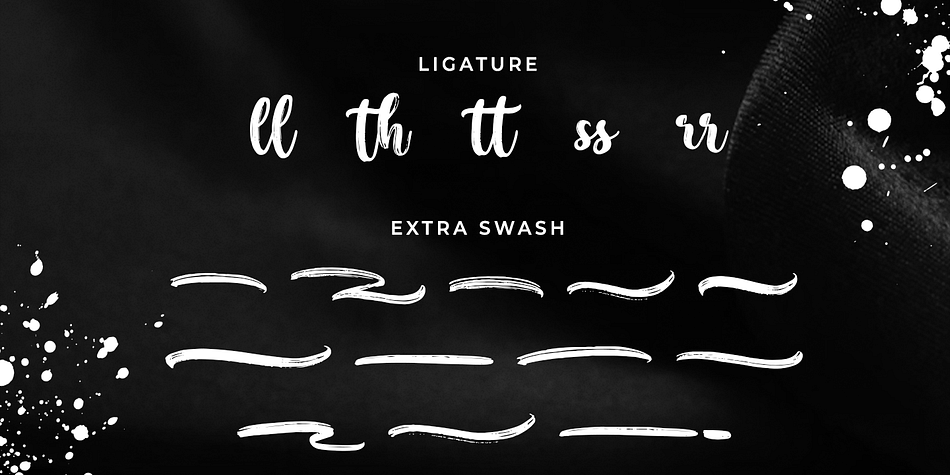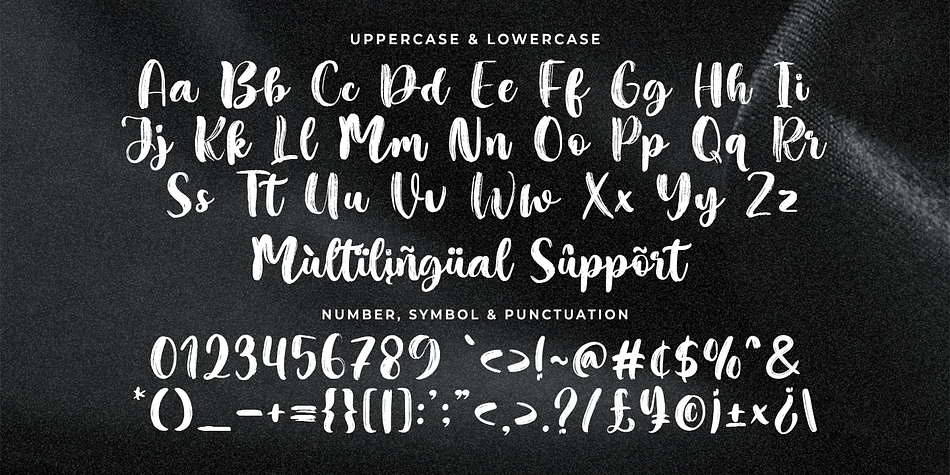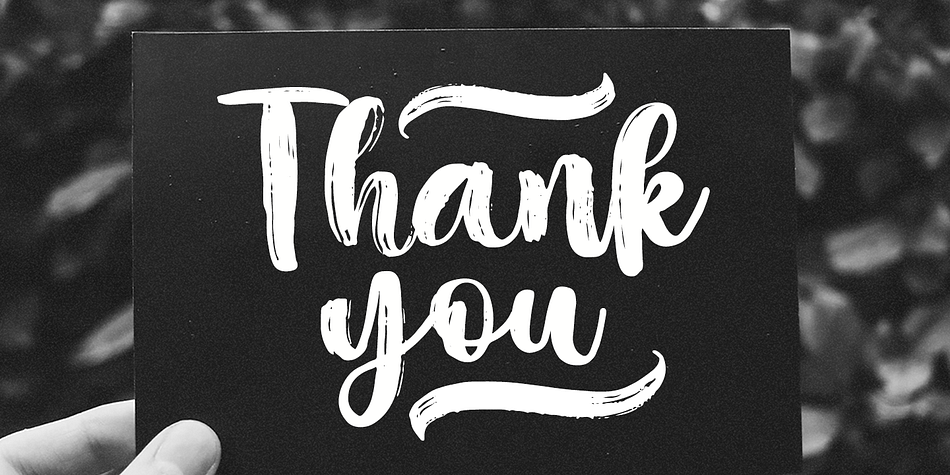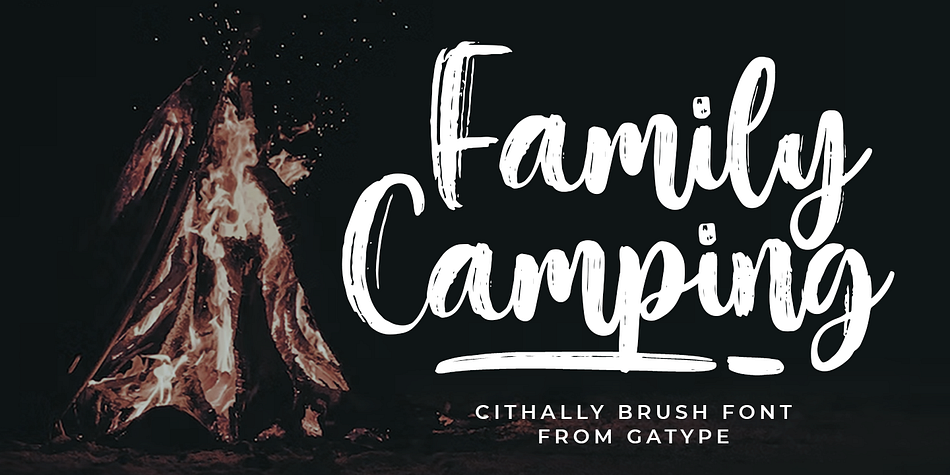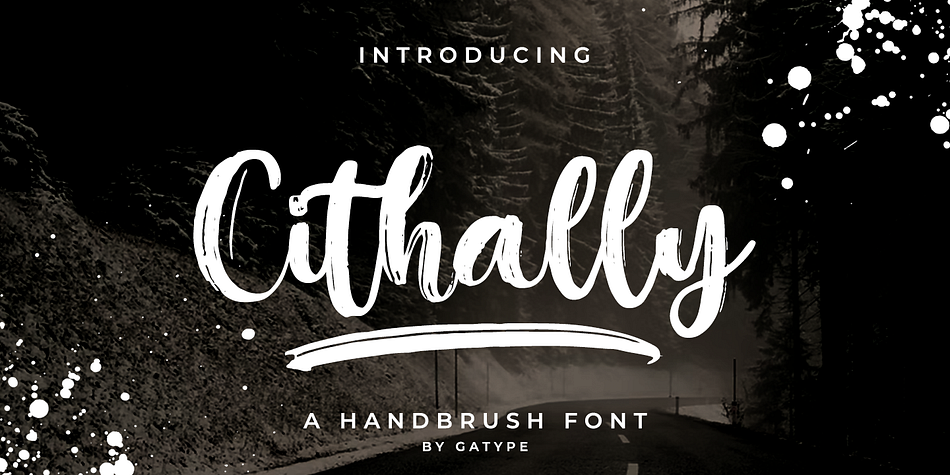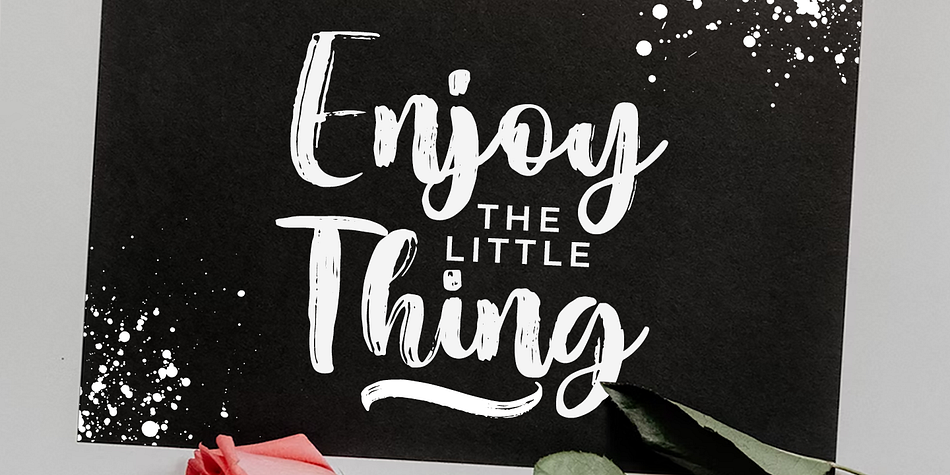
Cithally
Cithally is a brush script and dingbat font family. This typeface has two styles and was published by Gatype.
introducing a new font Cithally Handwritten Font is a handwritten font with a distinctive and sharp brush texture. Cithally was handwritten on paper with a coarse type brush, resulting in a consistent texture.
You can customize Cithally to create a unique style when multiple characters of the same letter meet, because Cithally has alternative lowercase letters in different styles.
The Cithally handwritten font can also be used for projects such as stationery invitations, social media, logos, weddings, branding, graphic designs with the addition of some binding and strokes. and can be combined with various types of serif fonts to perfect the project you want to work on.